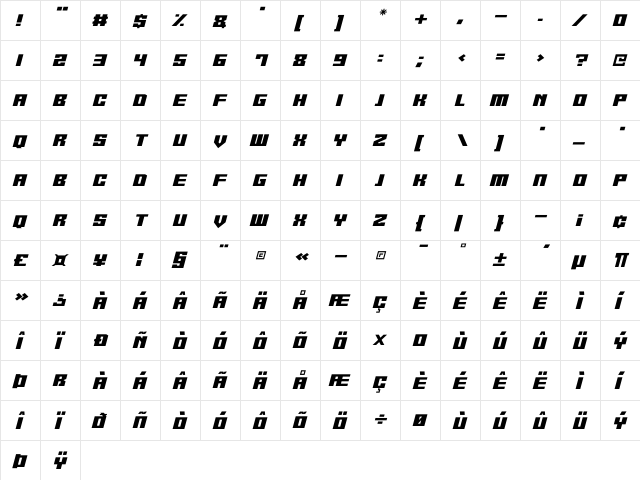
Robot Z Italic
Design Context for Robot Z Typeface
Robot Z is a composed and adaptable typeface that performs quietly and consistently across a wide range of design contexts. The dynamic lean of this cut emphasises speed and emphasis in any layout.
Pro Tip: Use Robot Z for emphasis, pull quotes, and subheadings where its slanted energy can add rhythm to the layout.